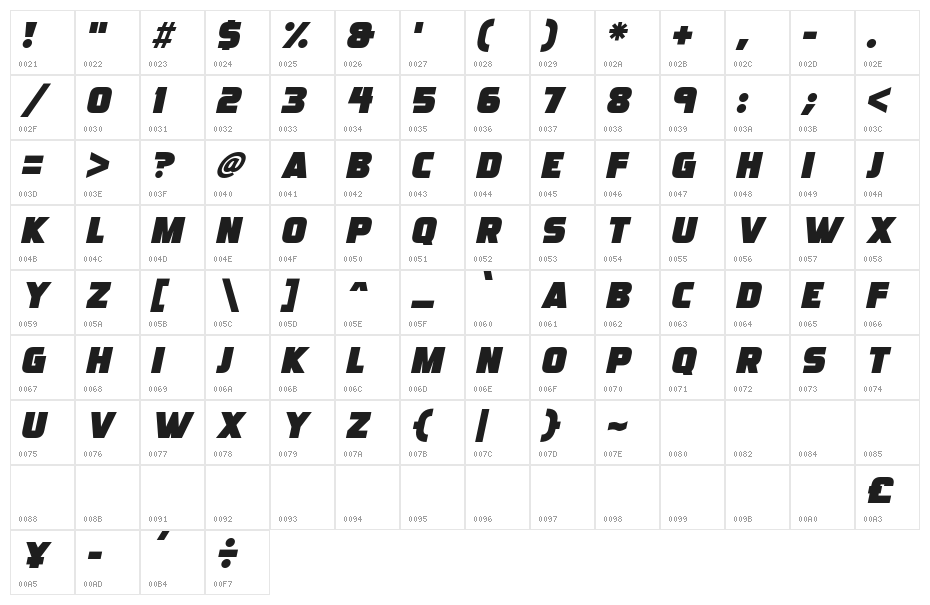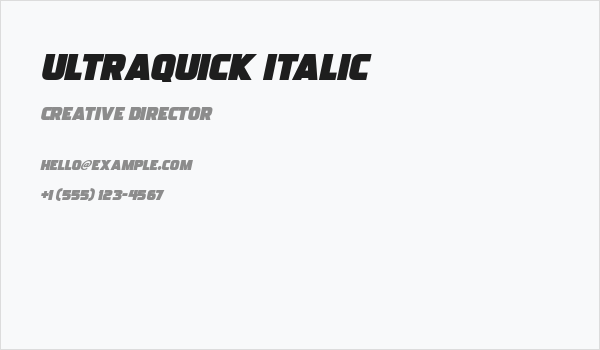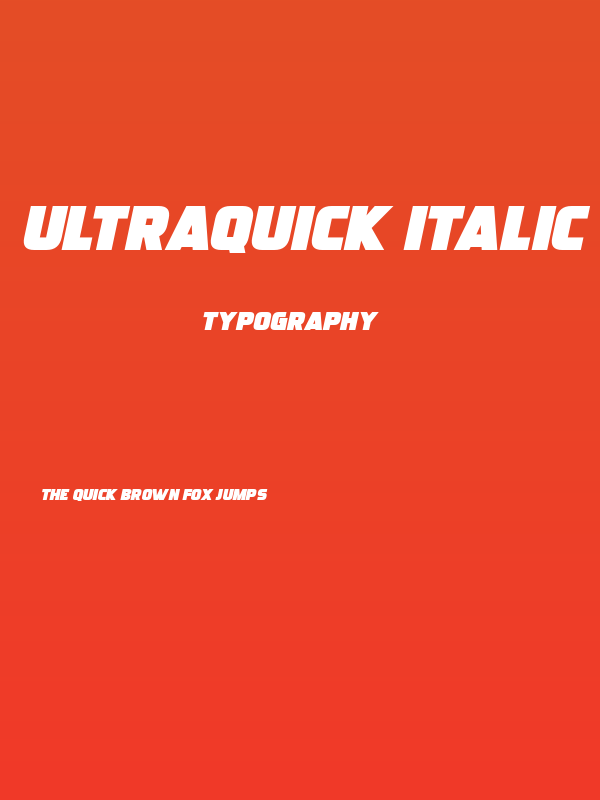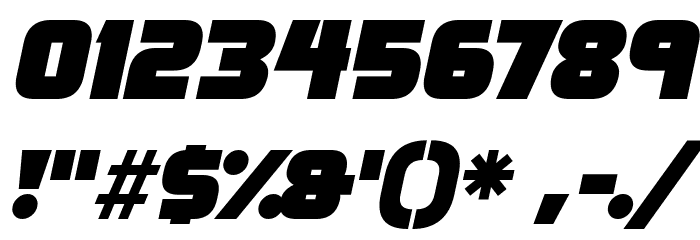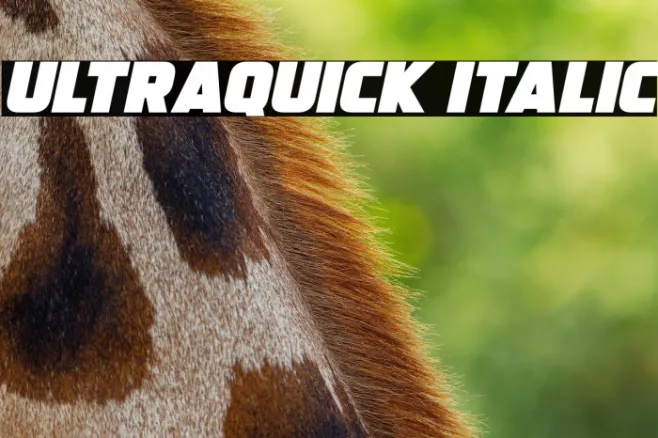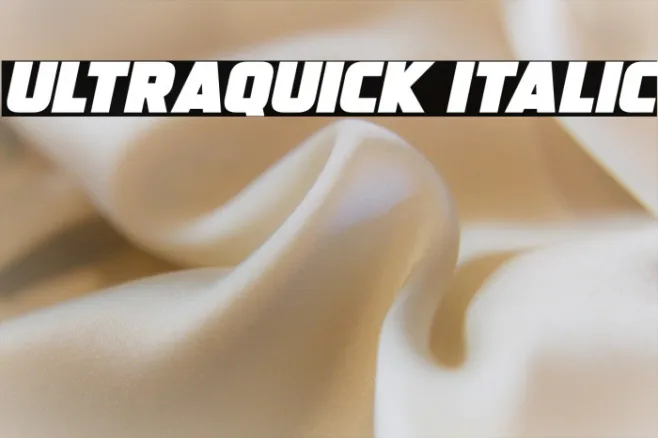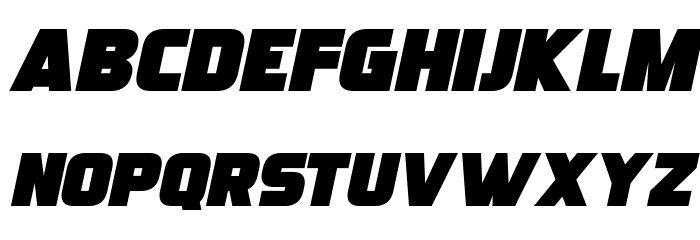
Ultraquick Italic Font
Ultraquick Italic Description
This font features a bold and dynamic design with a strong italic slant, giving it a sense of speed and urgency. The characters are wide and robust, with a consistent stroke thickness that adds to its bold appearance. The uppercase and lowercase letters maintain a uniform style, while the numerals are equally bold and impactful. Special characters are designed with the same attention to detail, ensuring a cohesive look across all glyphs. This font is ideal for projects that require a strong visual impact and a modern, energetic feel.
| Proposed Projects | Ideal for sports branding, action movie posters, dynamic advertisements, and modern logo designs. |